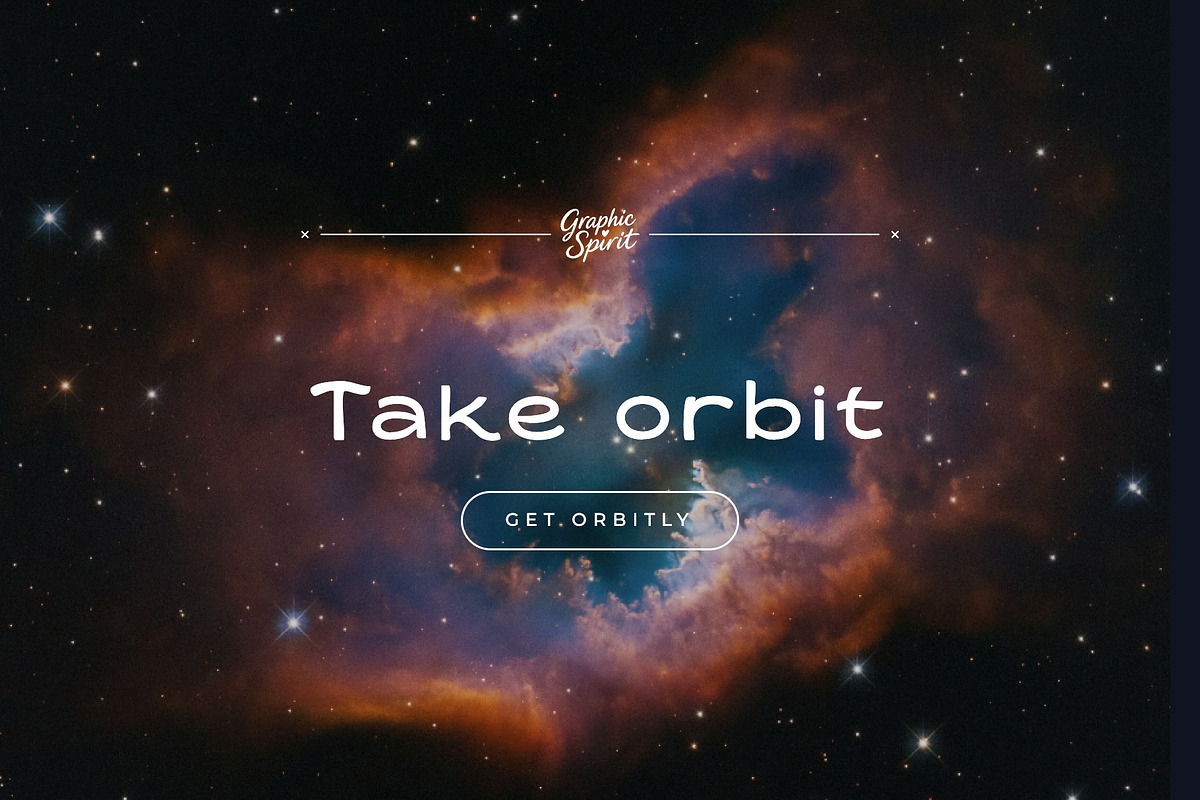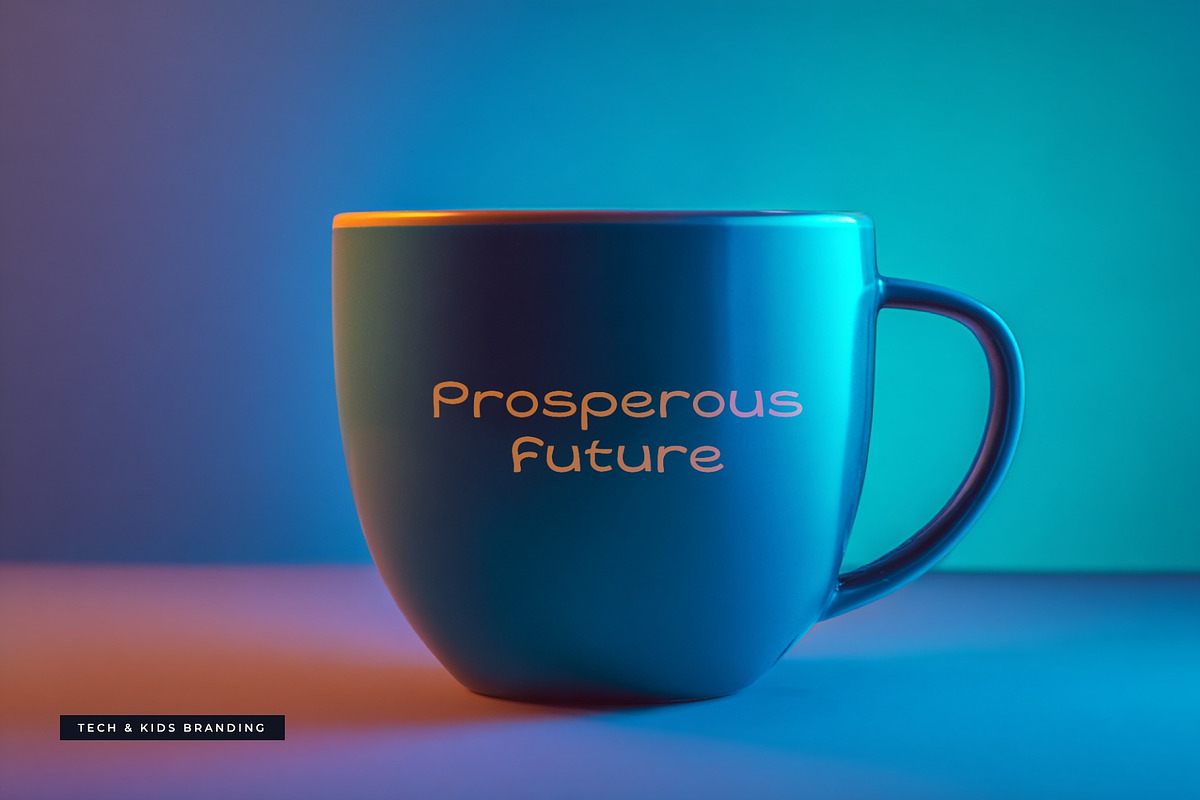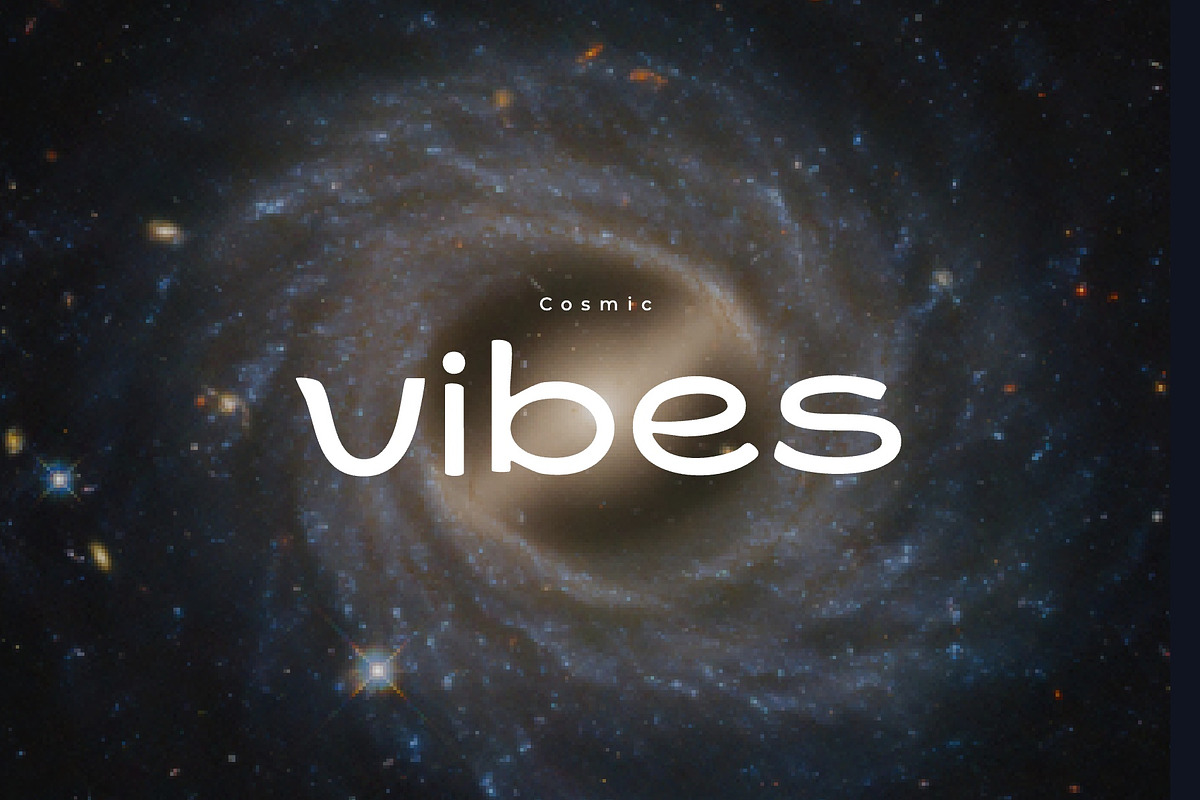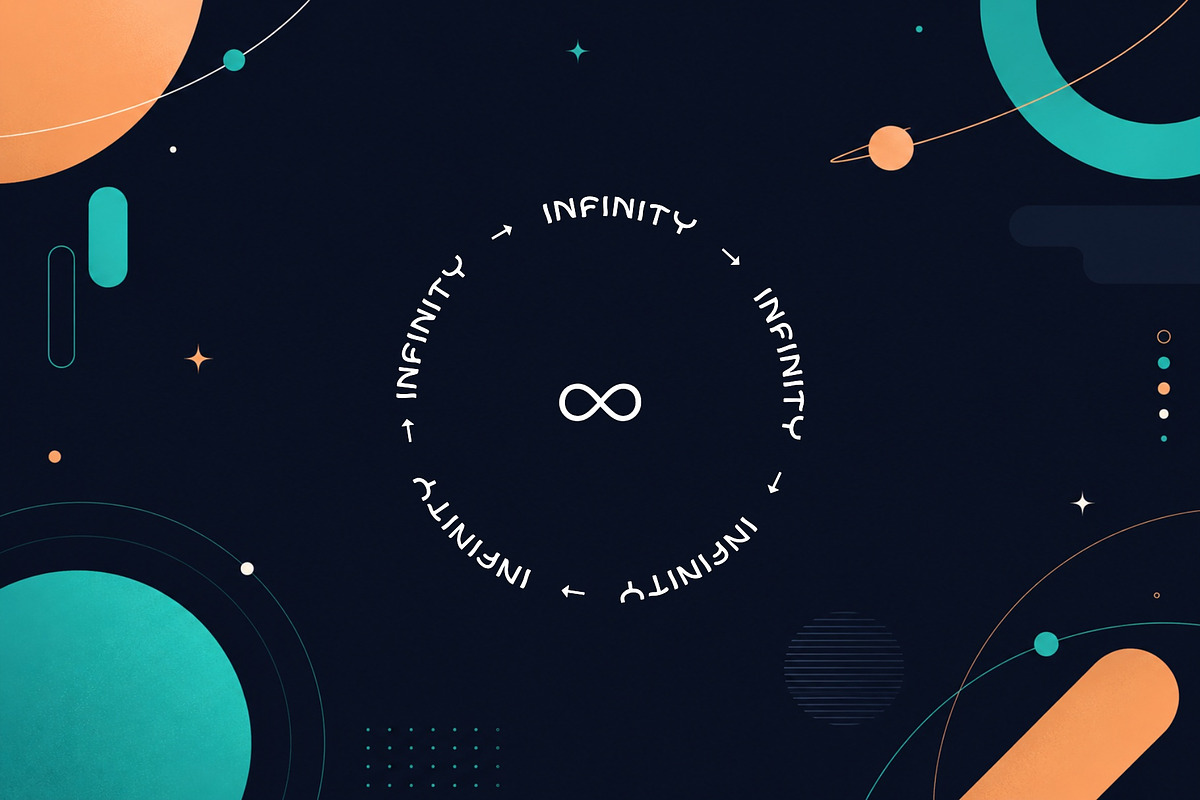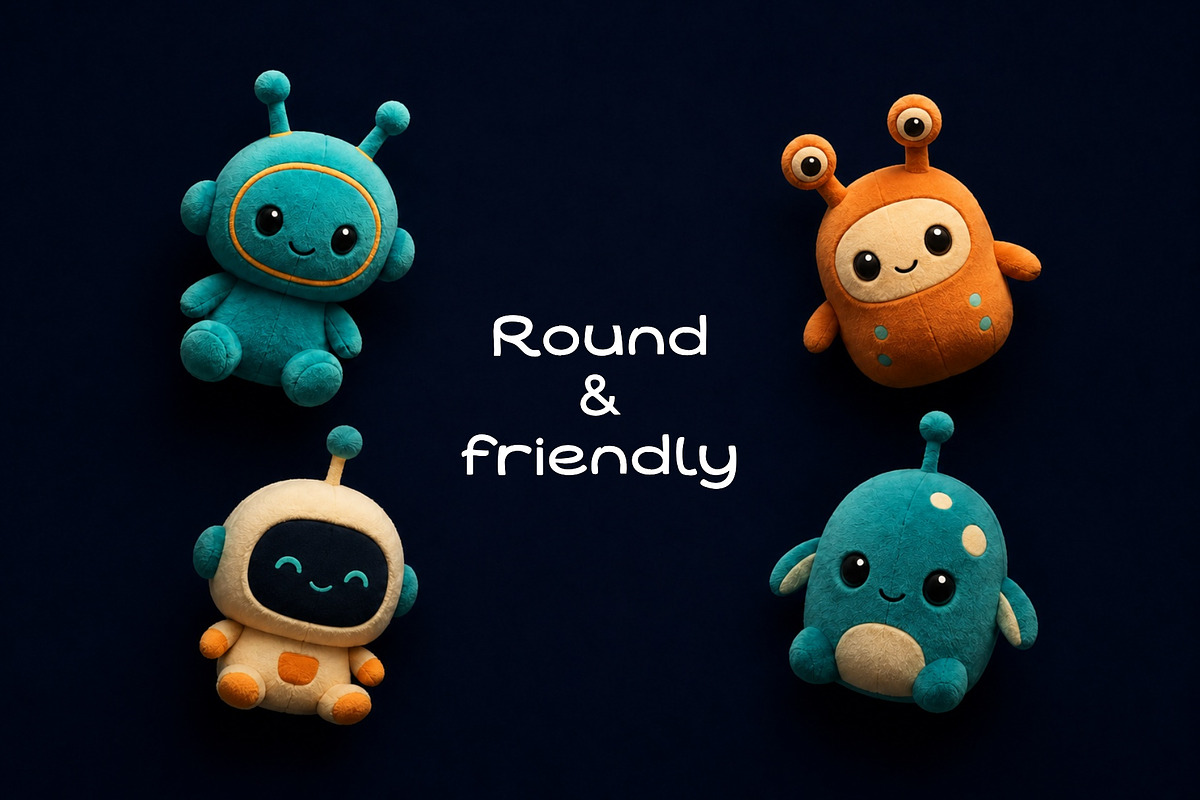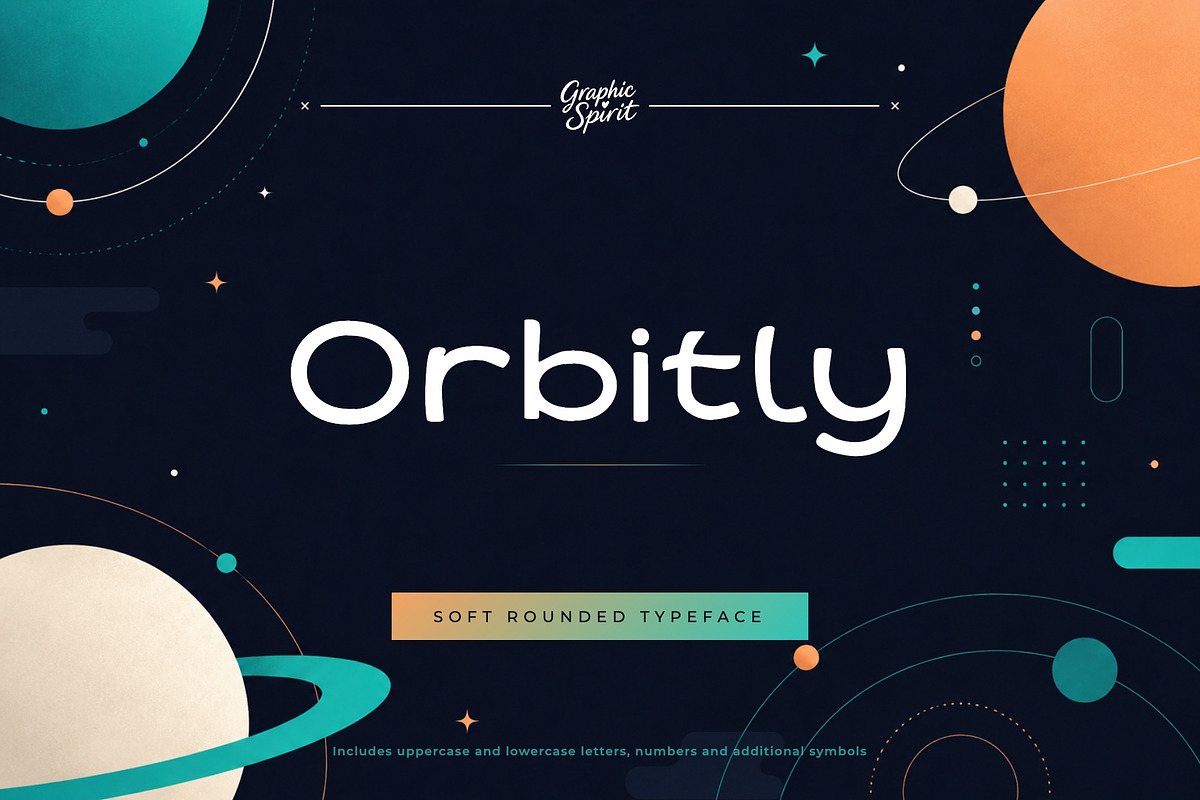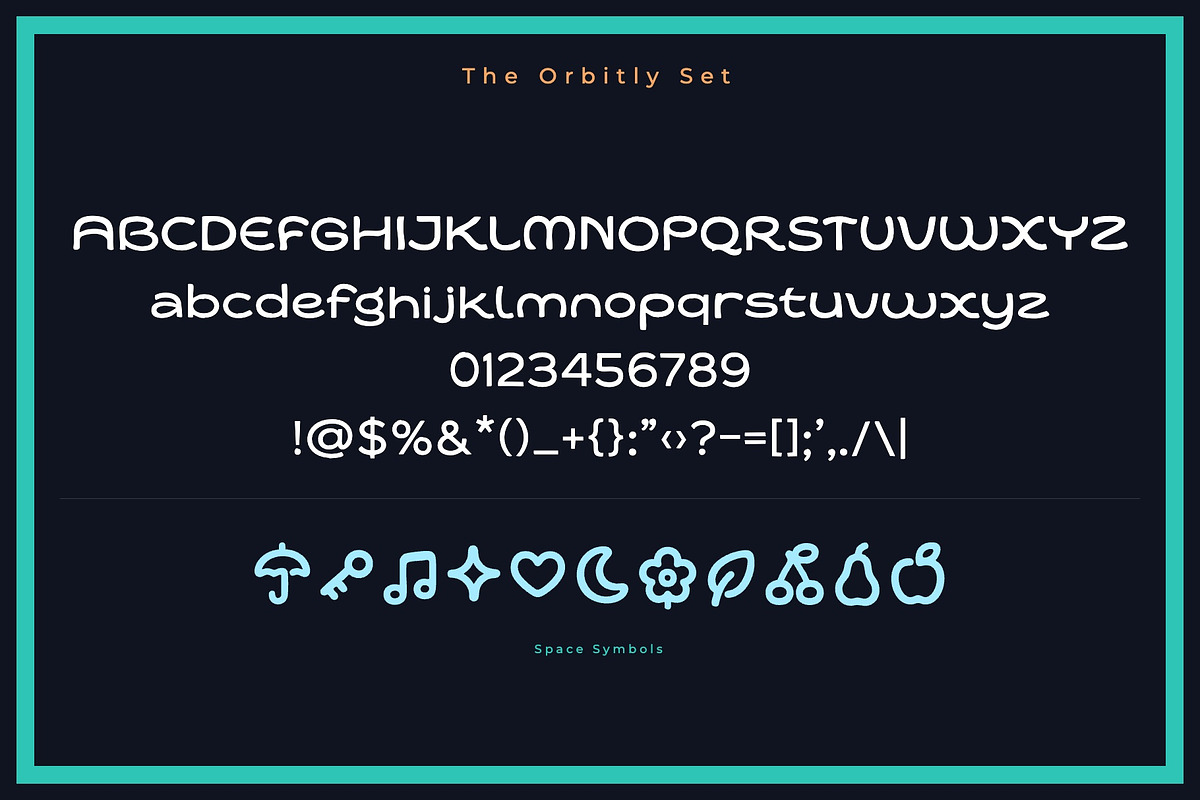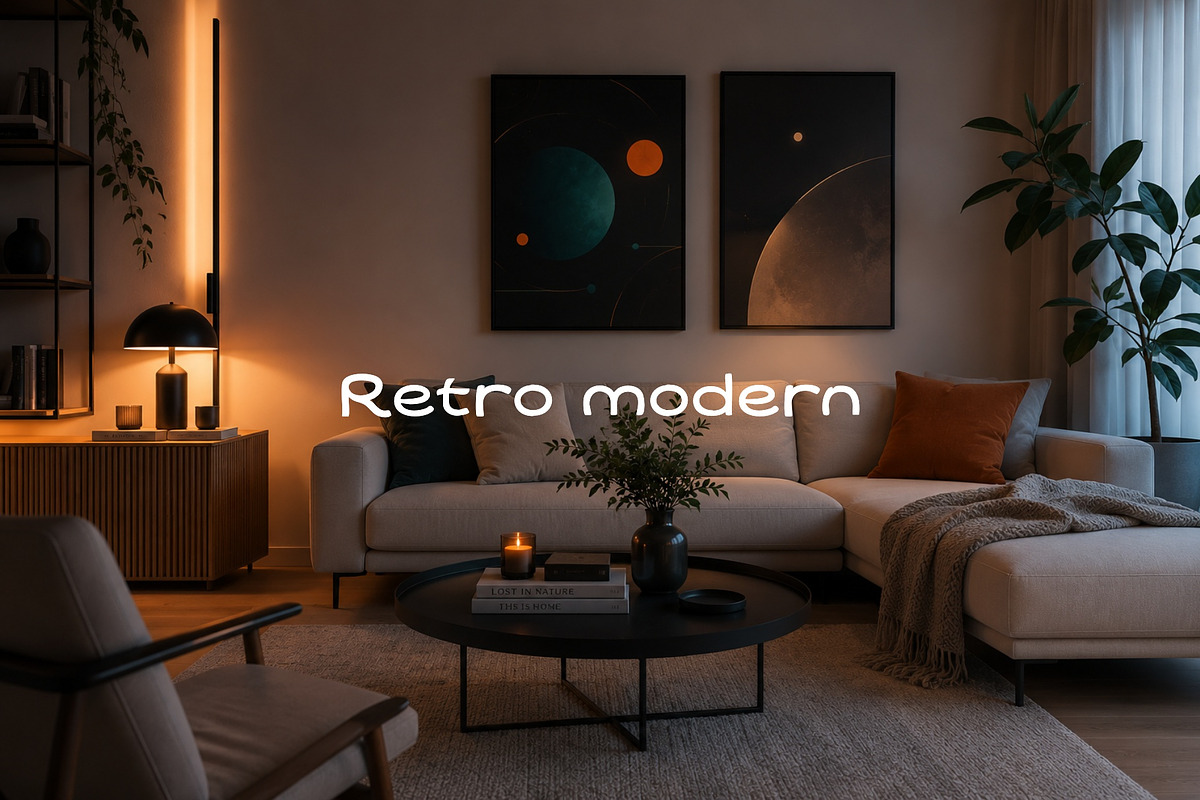
Orbitly Font
✨ Orbitly is a soft rounded retro-future font with space-age curves, friendly orbit shapes, and playful tech optimism. It was created for designers, makers, and small brands who need expressive typography with a clear visual personality.
🎨 Orbitly works beautifully for tech branding, kids apps, space posters, science graphics, modern packaging, game titles, playful logos, futuristic stationery. The style is strong enough for headlines and product names, but still friendly enough for approachable branding, packaging, posters, labels, social graphics, and creative layouts.
💛 The typeface has a distinct display rhythm, so even short words feel designed and intentional. It is a useful choice when you want a project to feel crafted, memorable, and visually specific.
Best for:
- 🪐 Space posters and science graphics
- 🚀 Playful tech branding and app titles
- 🎮 Game graphics and kids products
- 📦 Modern packaging and friendly labels
- ✨ Rounded retro-future typography
Includes uppercase and lowercase letters, numbers, punctuation, and additional symbols shown in the previews.